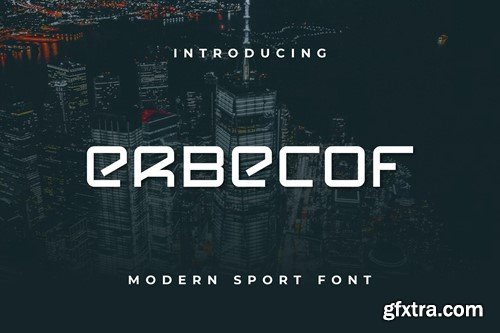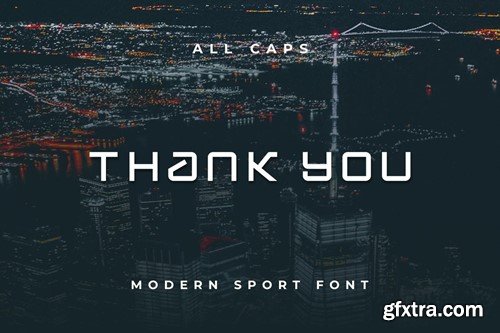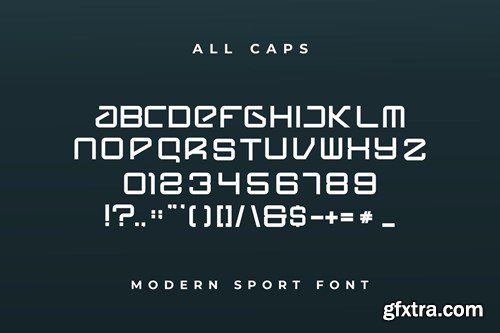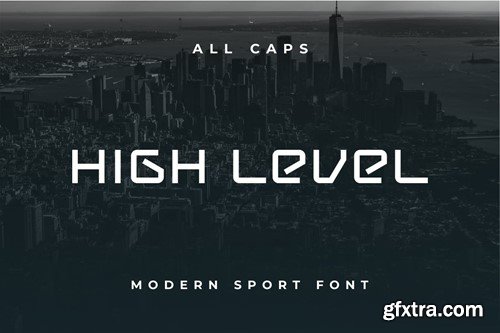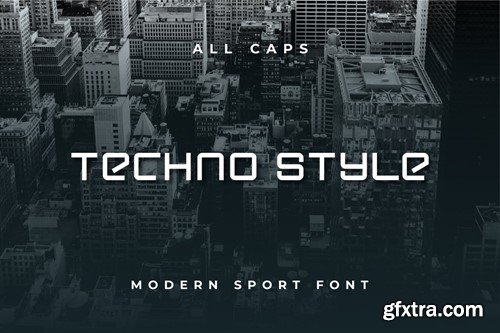
Erbecof Font
Introducing our new product Erbecof Font - Modern Font is a bold and authentic display font. The font is suitable for any branding project like logo, esport, and many more. outstanding in a wide range of contexts. availlable